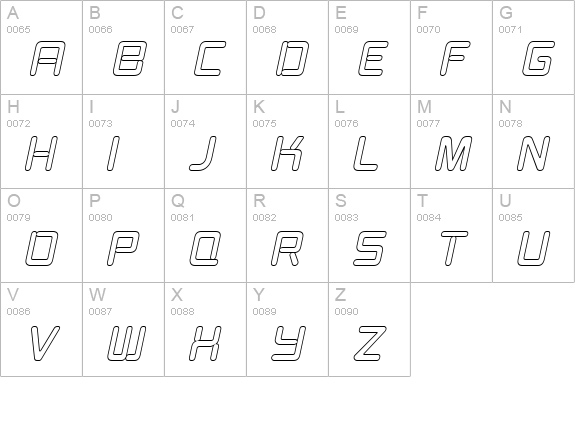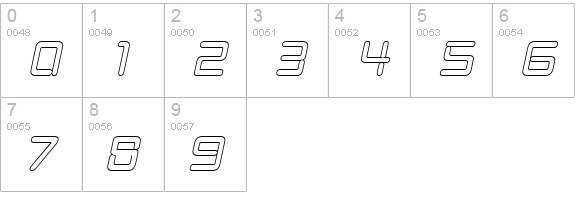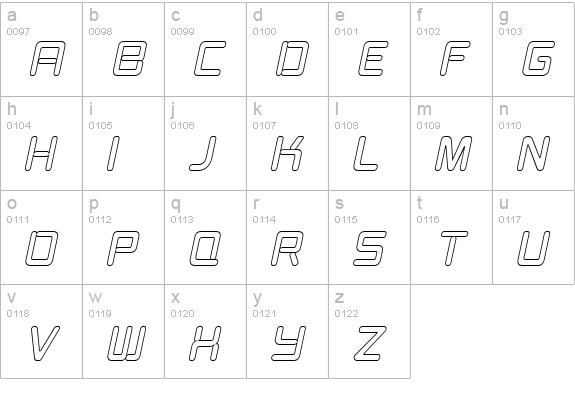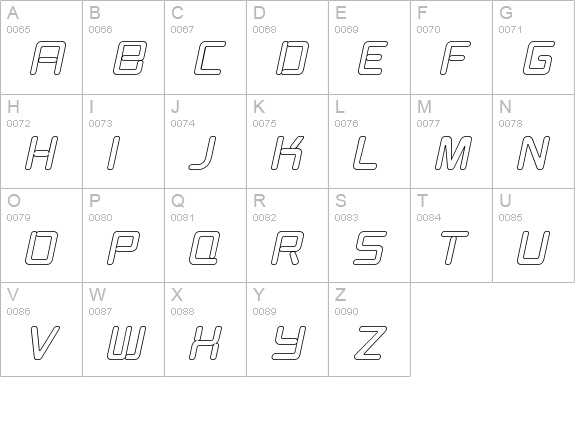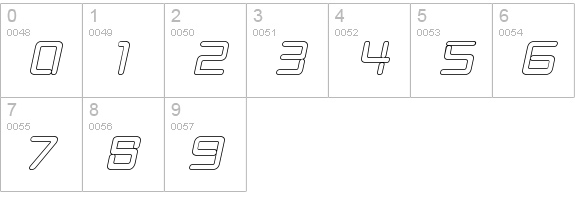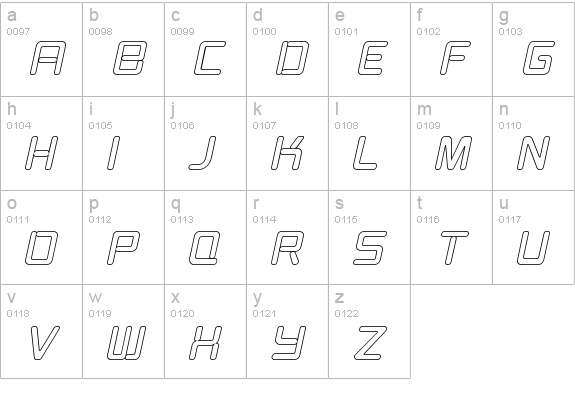
Burger Joint Neon It is a bold and eye-catching font that perfectly captures the vibrant and energetic atmosphere of a bustling burger joint. With its neon-inspired design, this font exudes a sense of fun and excitement, making it the perfect choice for any project that needs a touch of retro flair. The Open JL font style adds a modern twist to the classic neon aesthetic, giving Burger Joint Neon It a unique and contemporary look. Whether you're designing a menu for a trendy burger spot or creating promotional materials for a hip new restaurant, this font is sure to make a statement. Best of all, Burger Joint Neon It is available for free download at FontsMarket.com. So go ahead and add this lively font to your collection today and bring a touch of neon-inspired charm to your next design project!